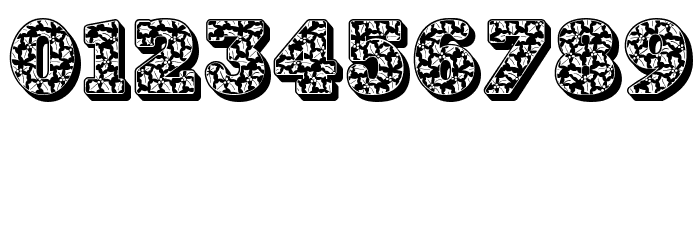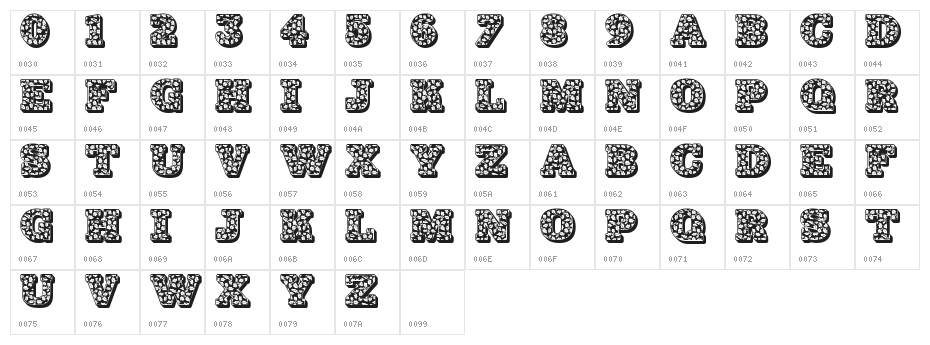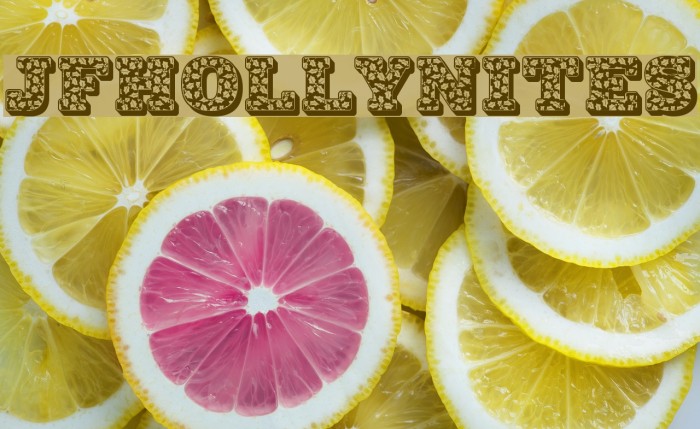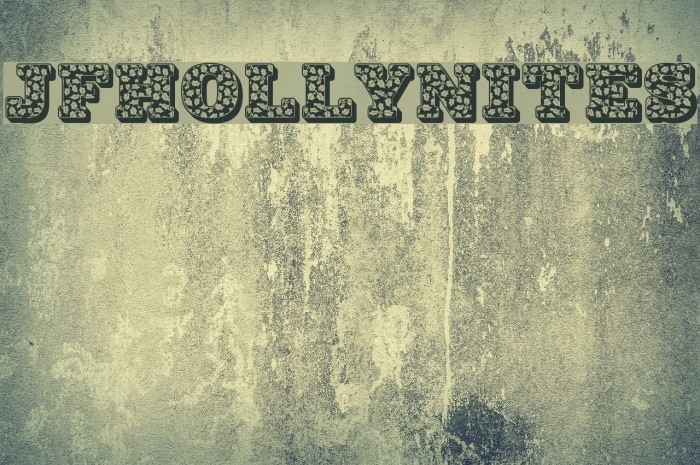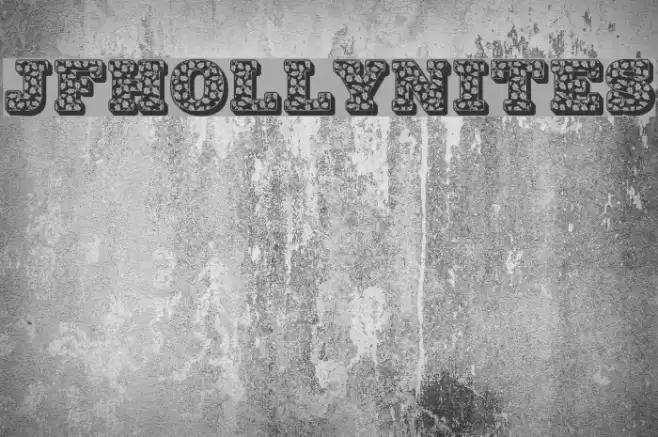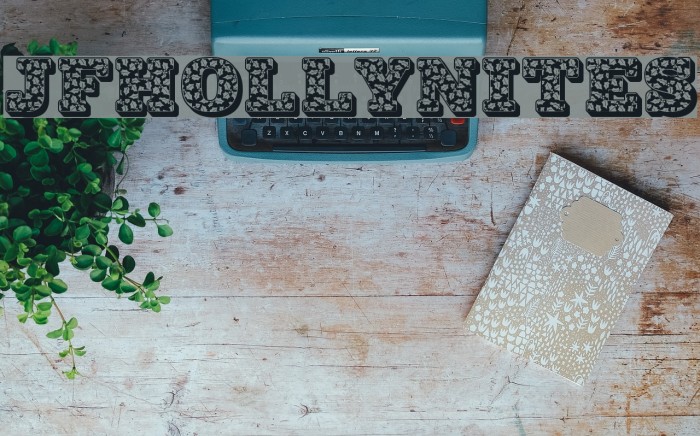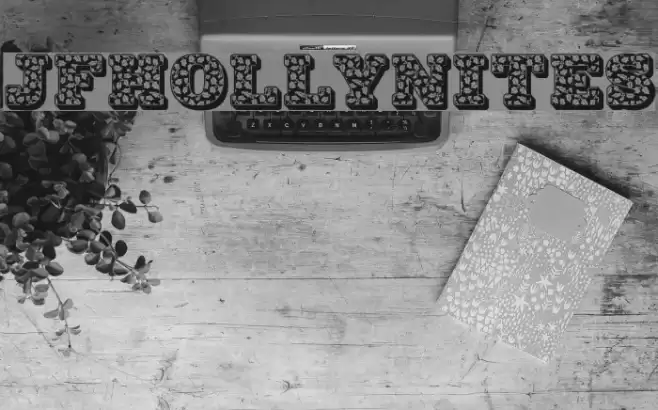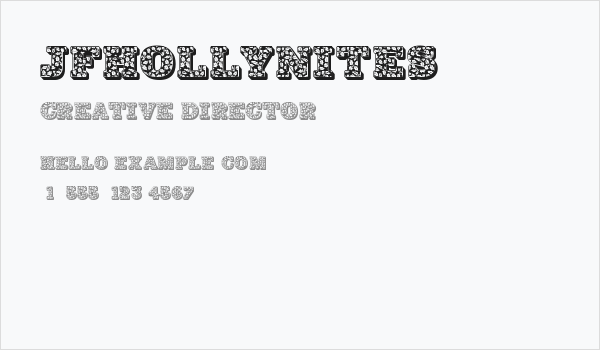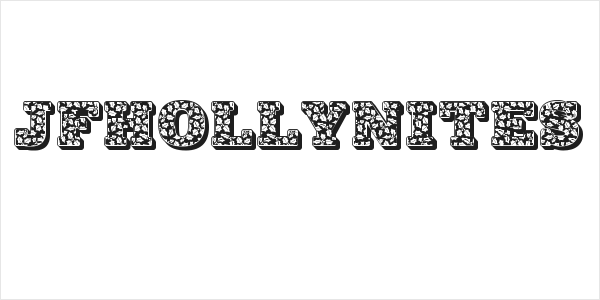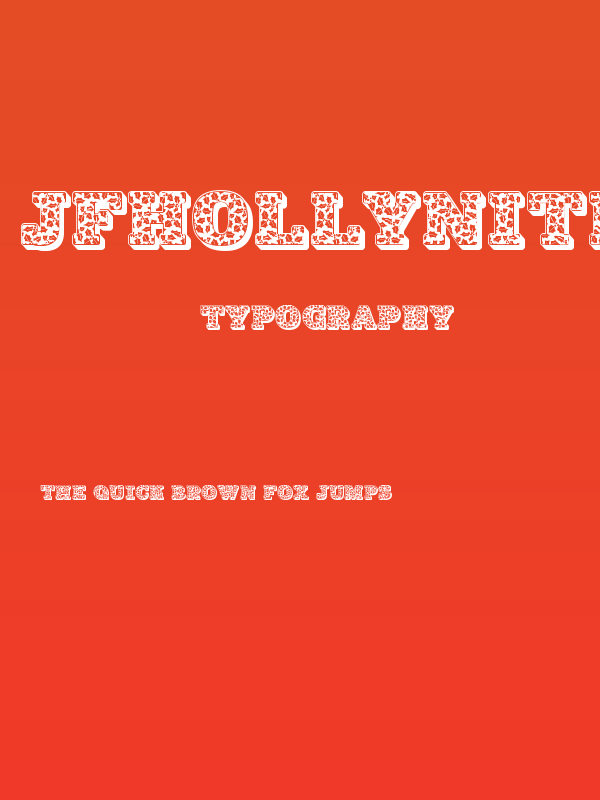
JFHollyNites Font
JFHollyNites Description
This font features a bold, decorative style with intricate patterns filling each character. The letters are uppercase and have a playful, festive appearance, reminiscent of holiday decorations. The design includes a mix of geometric shapes and star-like motifs, creating a textured and dynamic look. The characters are well-defined with a thick outline that enhances their visibility and impact. This font is ideal for capturing attention and adding a whimsical touch to any design project.
| Proposed Projects | Ideal for holiday-themed designs, greeting cards, festive posters, and playful branding. |